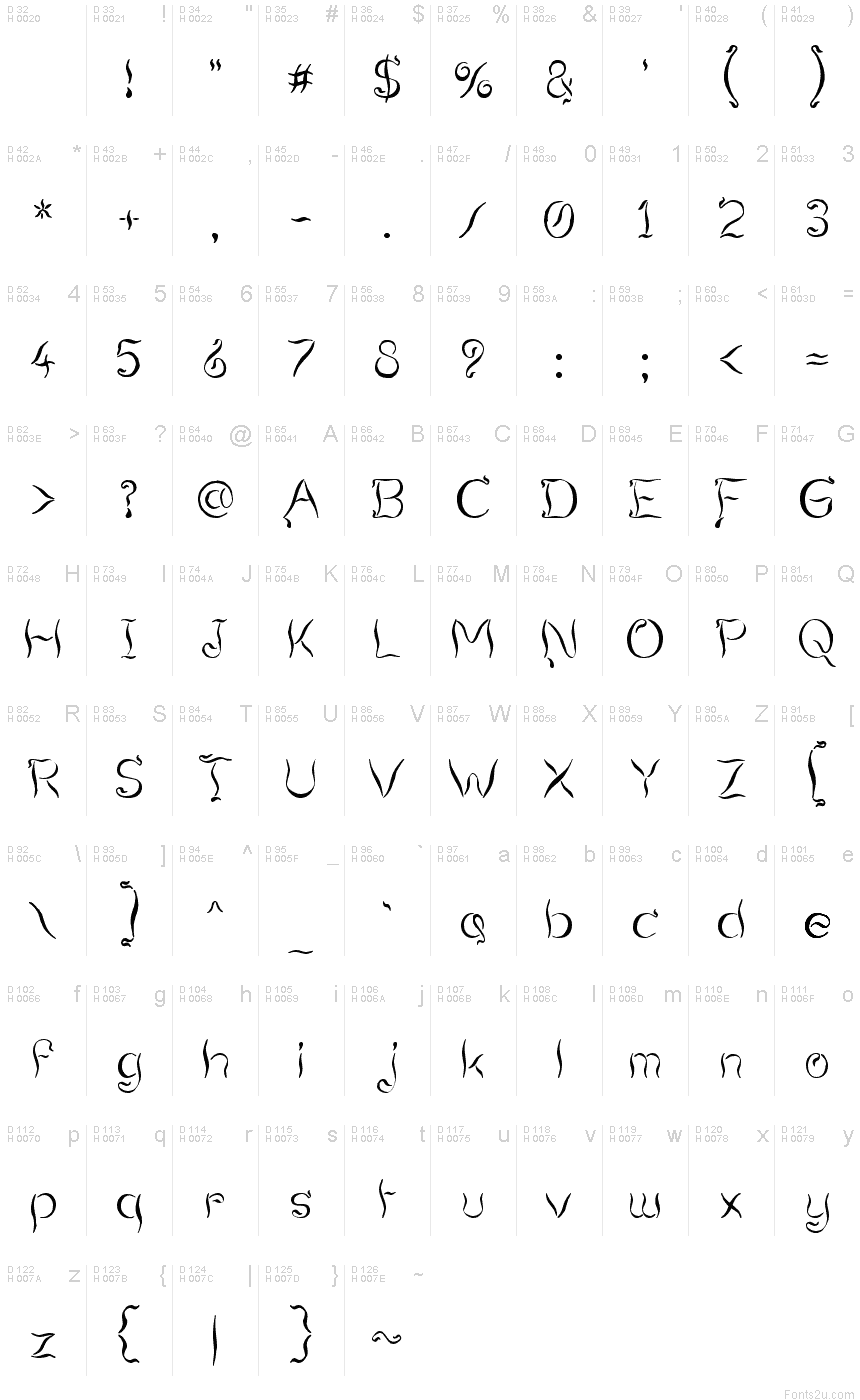
Smoking Tequila by GemFonts98 is a free distorted display font with a sly, smoky sway. The letters stretch and curl like drifting vapor, mixing tall flame-like strokes with rounded loops so the whole line feels loose, nocturnal, and a little unruly.
It fits music posters, bar branding, Halloween flyers, zine covers, and title cards where a free font can carry a hazy, misbehaving mood without much extra styling. Use it for short headlines, logo sketches, or a dramatic first word, especially when you want the lettering itself to feel like smoke rising and breaking apart.
Smoking Tequila